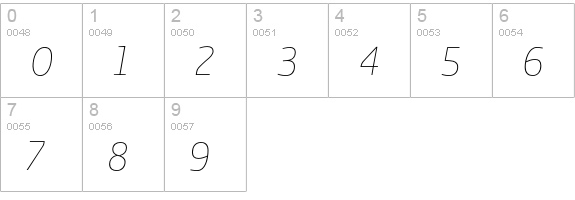
Vinkel Thin Italic Font Details
Vinkel Thin Italic is a delicate, low-contrast, italic variant in the Vinkel typeface family \xE2\x80\x94 well suited to fashion editorial, minimal branding, and high-contrast display.
Introducing Vinkel Thin Italic font - a sleek and modern typeface perfect for adding a touch of elegance to your design projects. The delicate slant and thin strokes of this italic variation lend a sophisticated and refined look to any text. Vinkel Thin Italic is a versatile font that can be used for various purposes, from branding to editorial design. The best part? Vinkel Thin Italic font is completely free to download at FontsMarket.com! Now you can enhance your creations with this stylish typeface without breaking the bank. Don't miss out on the opportunity to elevate your designs with the timeless charm of Vinkel Thin Italic font. Download it today and let your creativity soar!